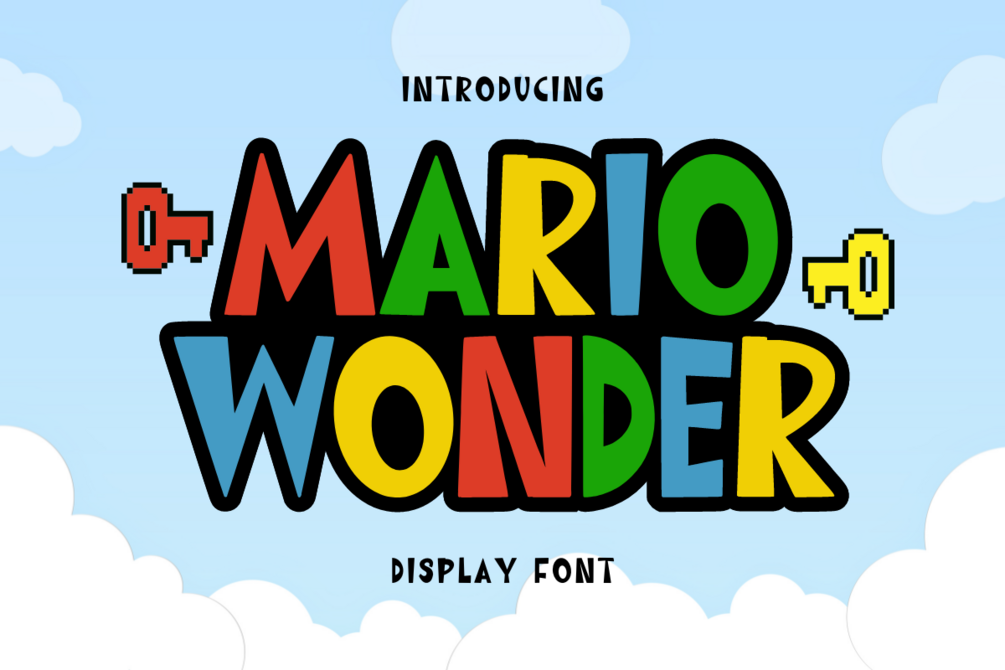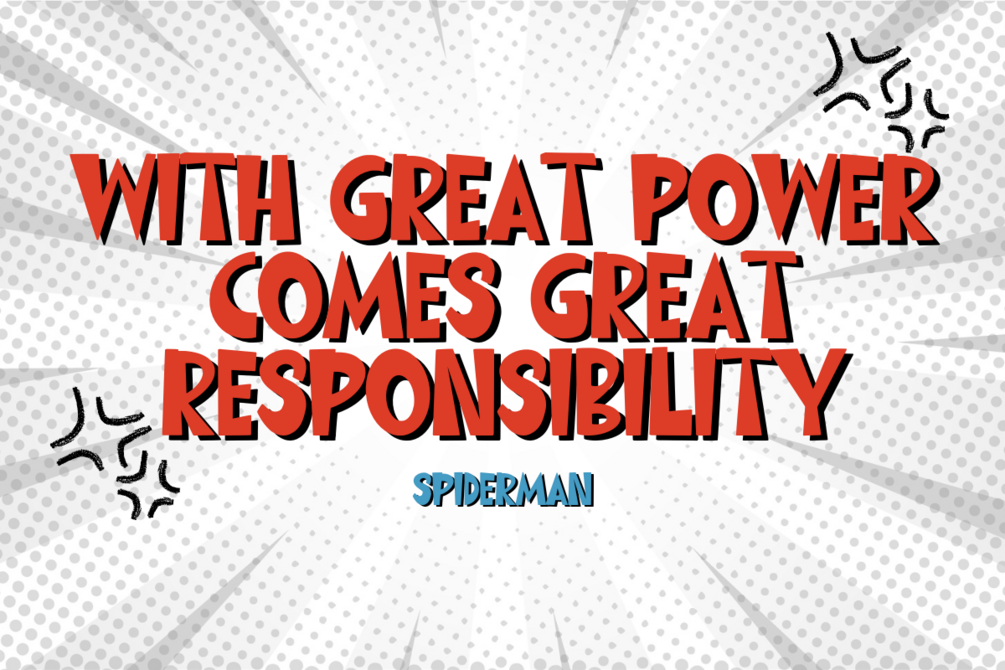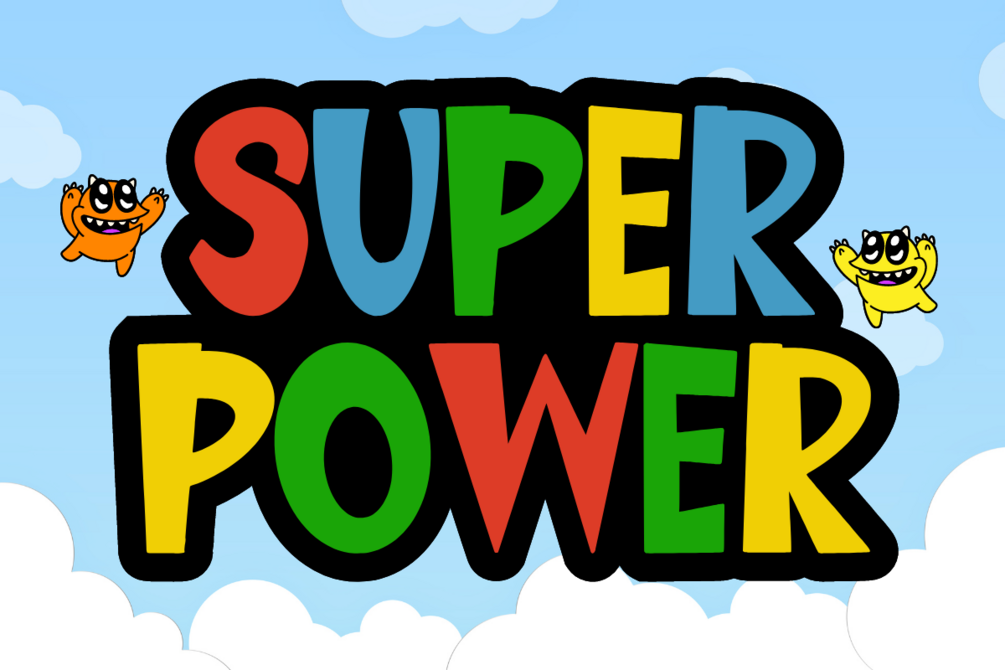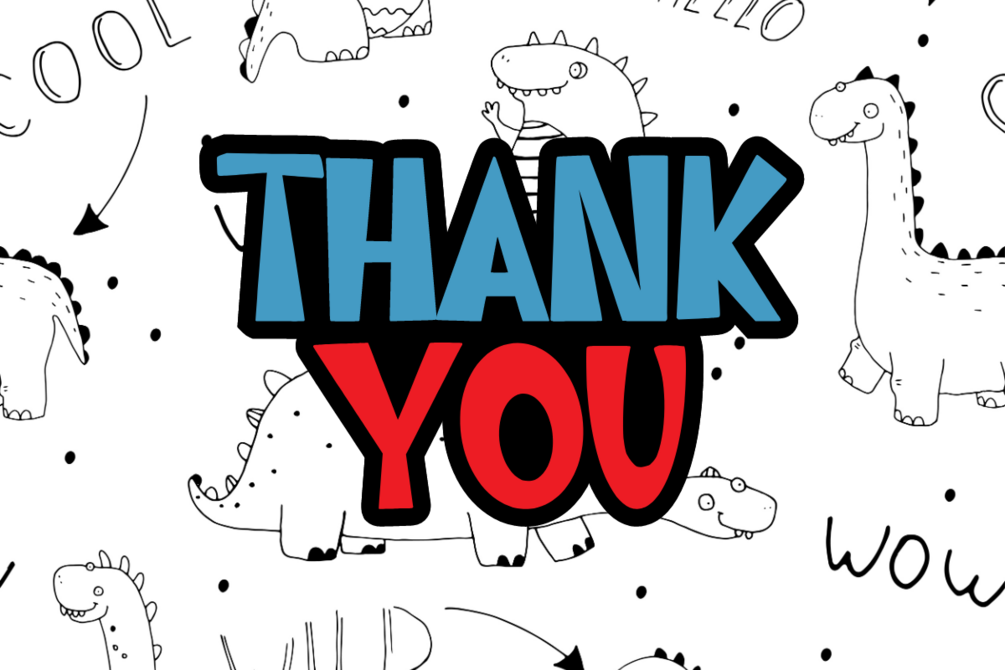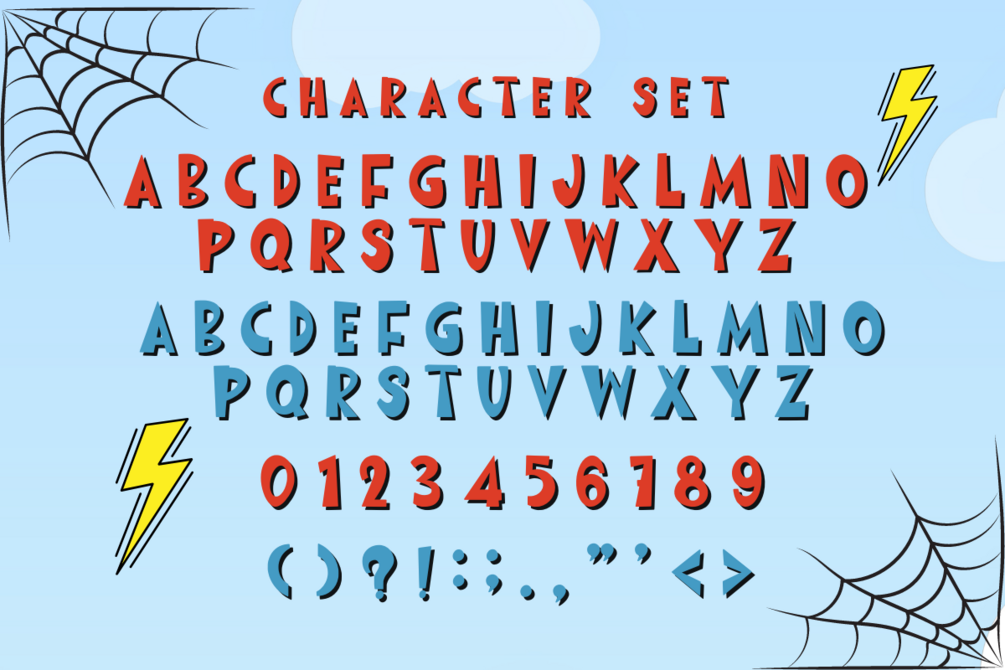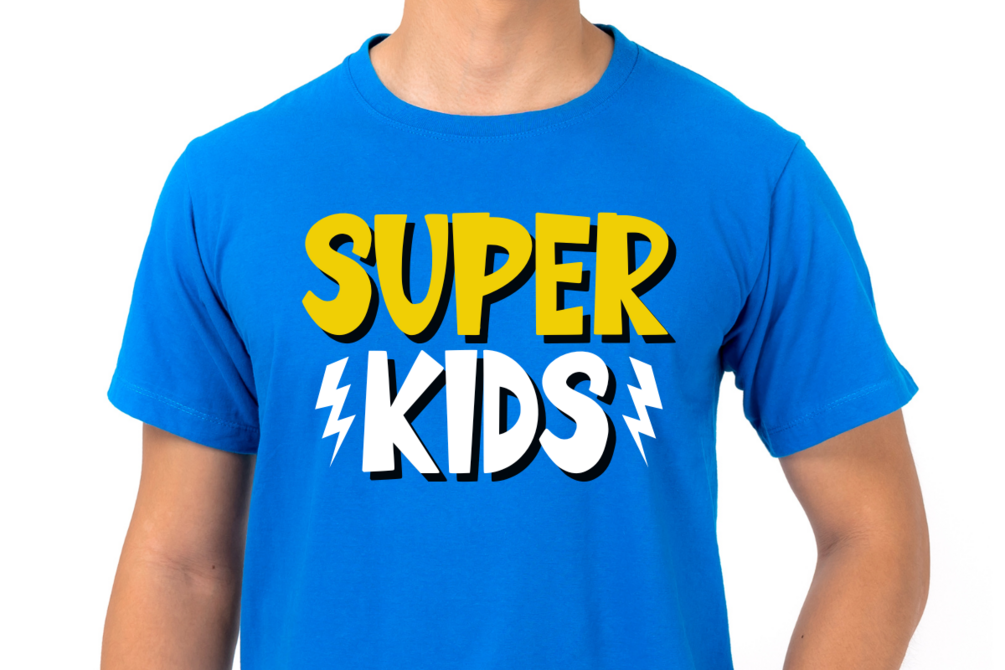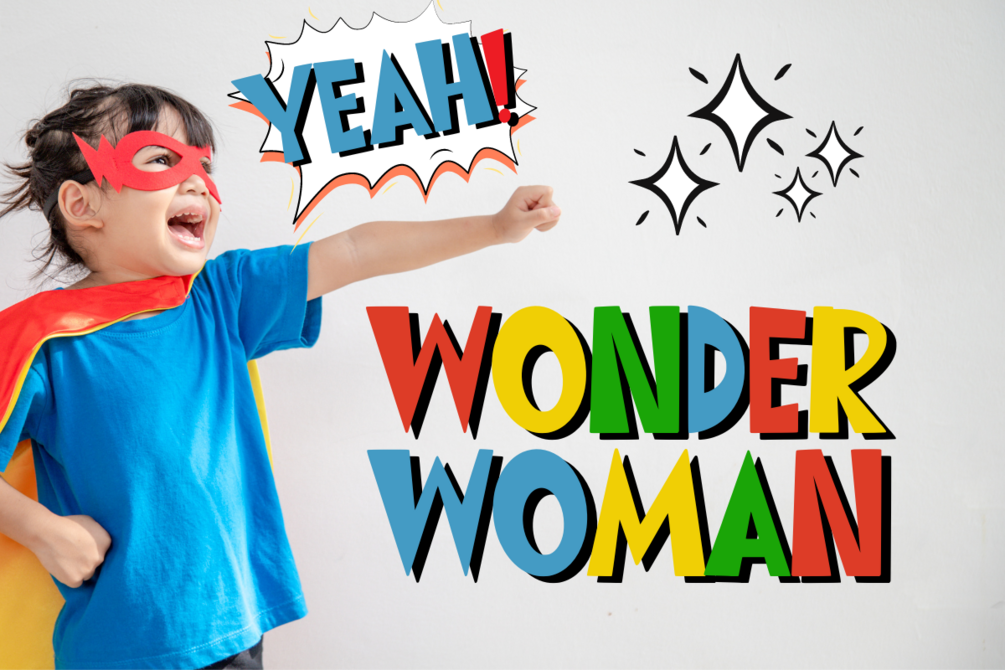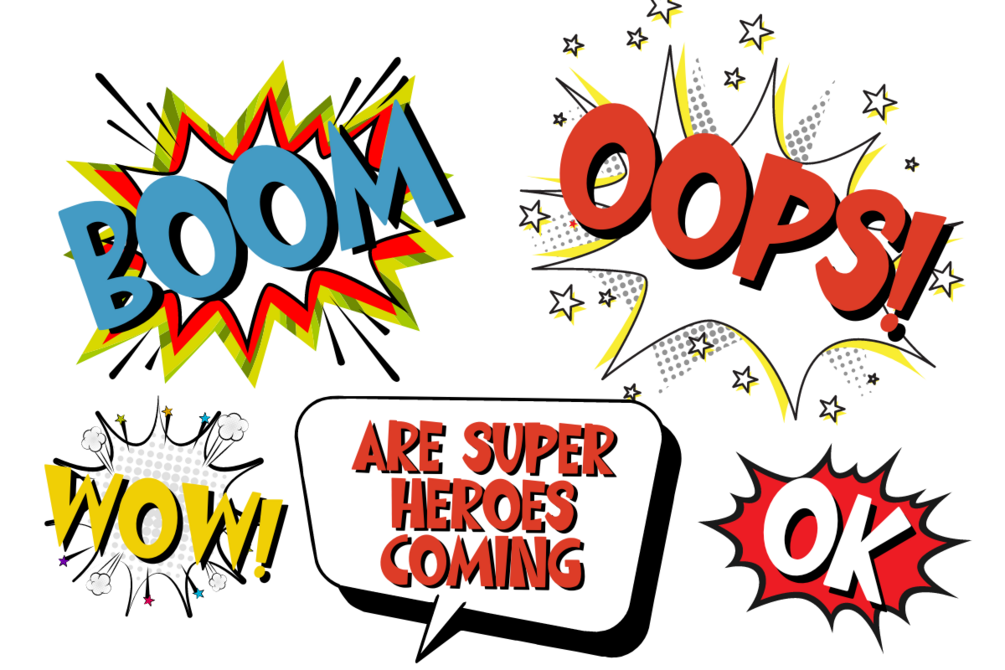
Mario Wonder - Display Font
Mario Wonder is a cool, bold and fun display font. It is PUA encoded which means you can access all glyphs and swashes easily! Add it with confidence to your favorite creations and let yourself be amazed by the resulting results.